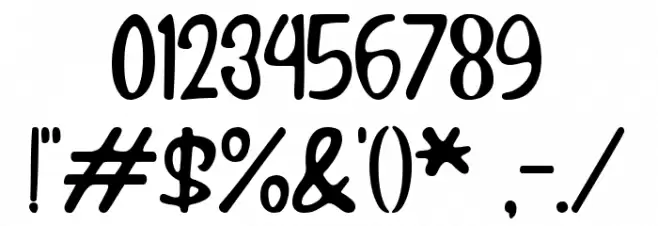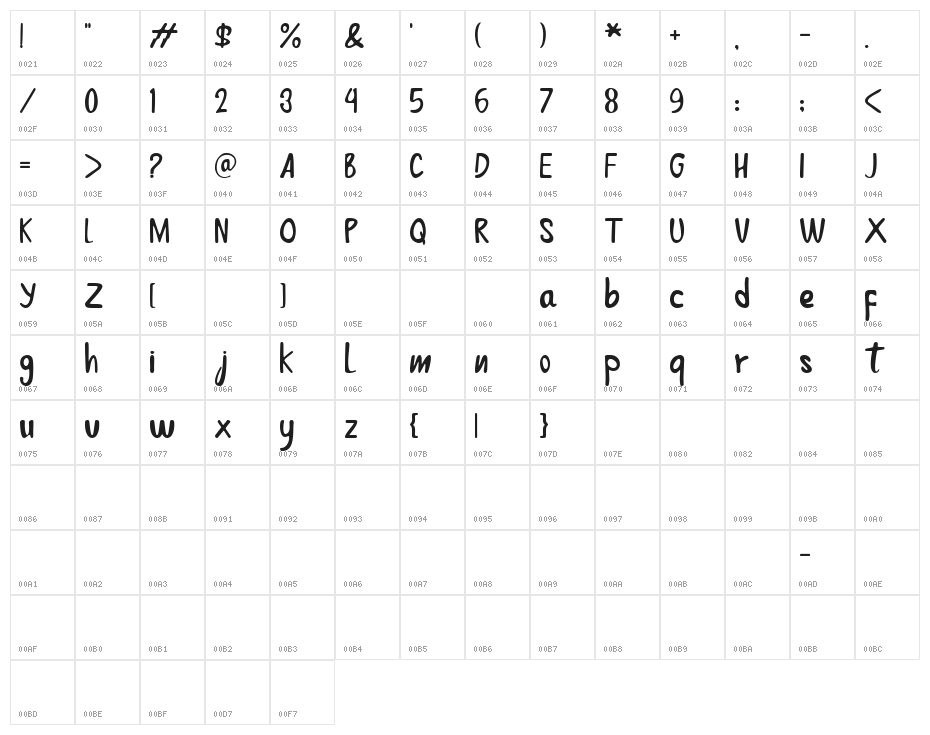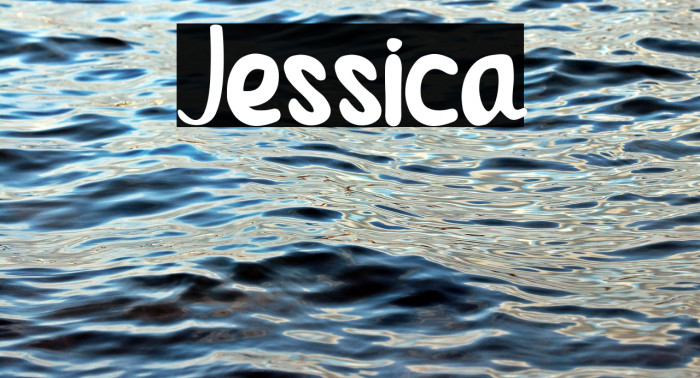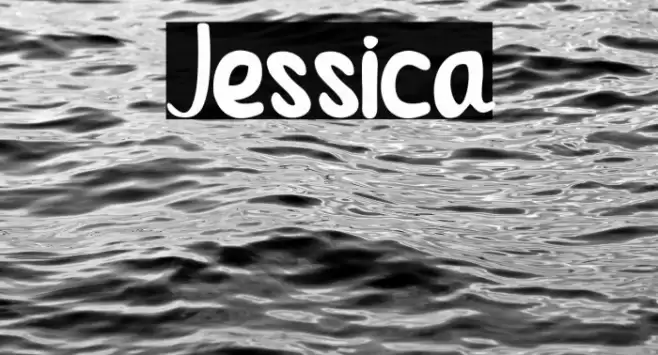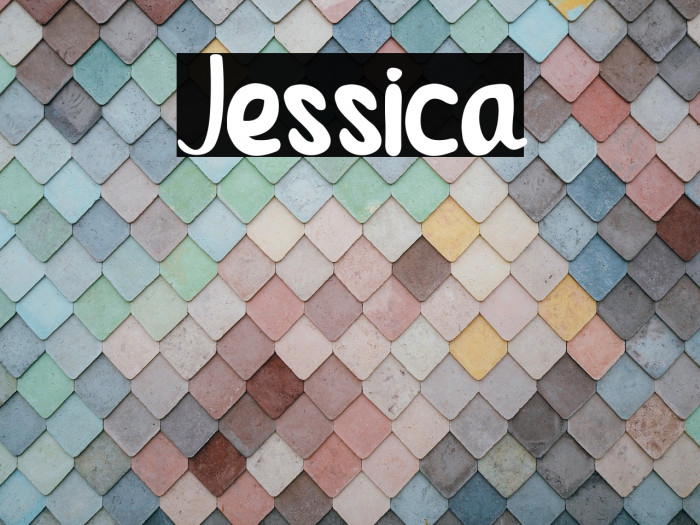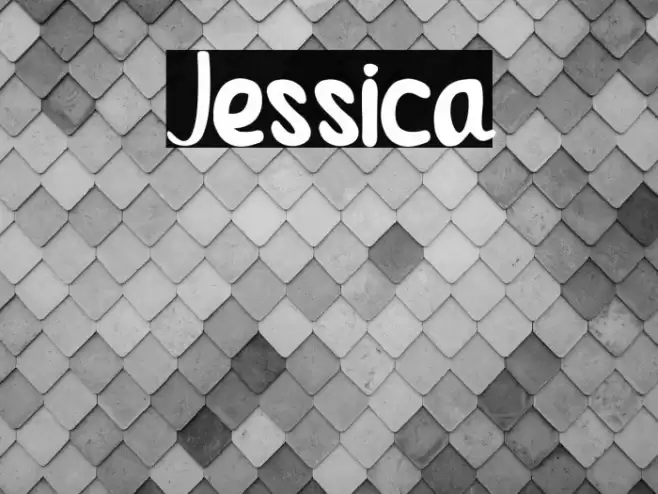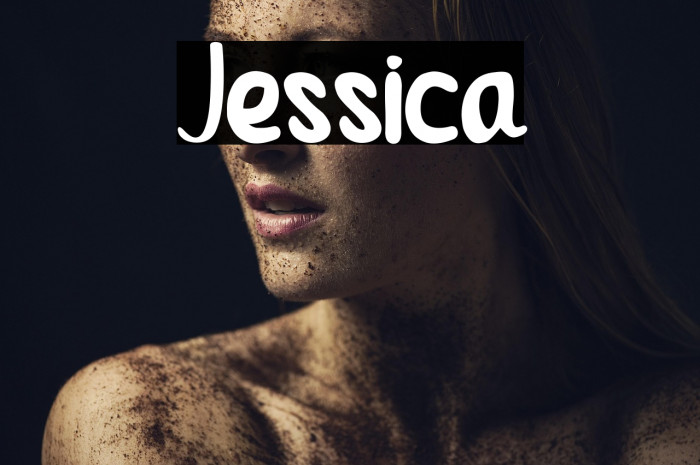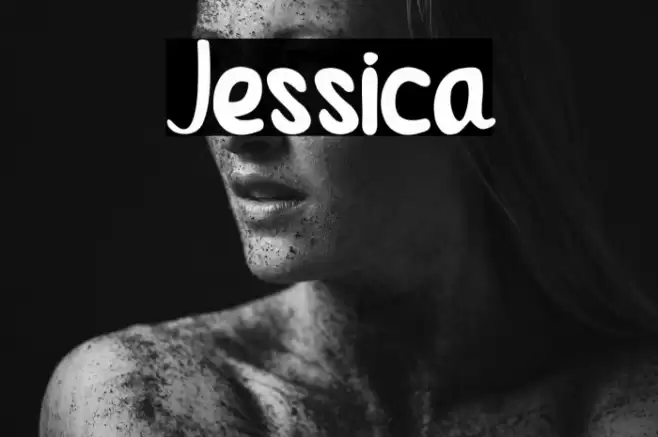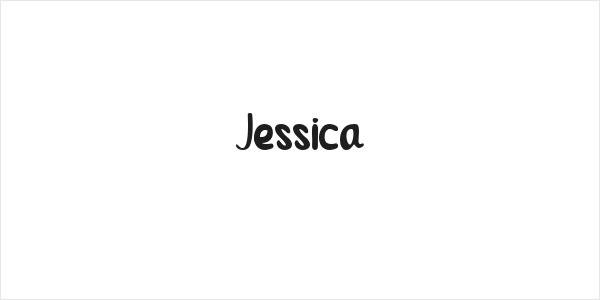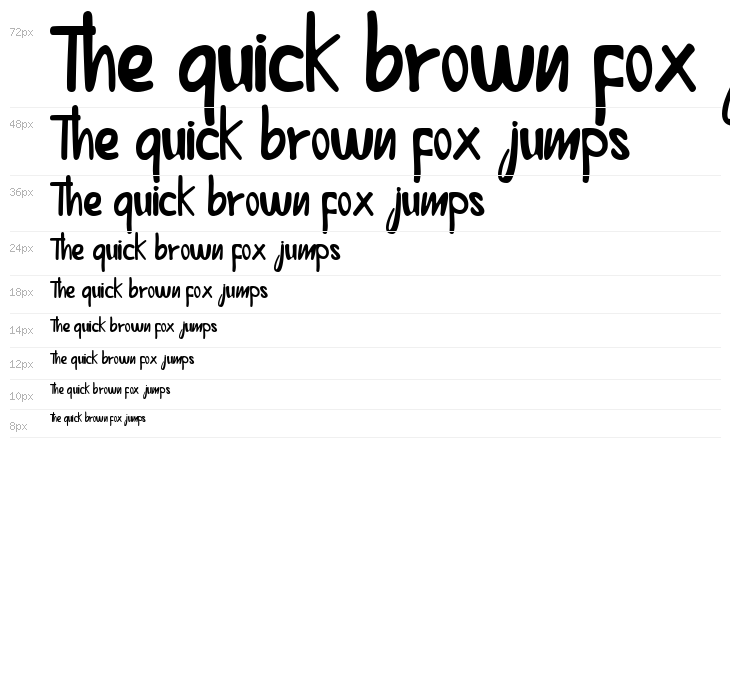
Jessica Font
Jessica Description
This playful and energetic font features a handwritten style with a bold and rounded appearance. The uppercase and lowercase letters maintain a consistent flow, with slightly exaggerated curves and loops that give it a whimsical feel. The numbers and special characters follow the same playful aesthetic, making it suitable for creative and informal designs. The font's overall design is approachable and friendly, with a touch of casual elegance. Its boldness ensures readability while maintaining a unique character that stands out in various applications.